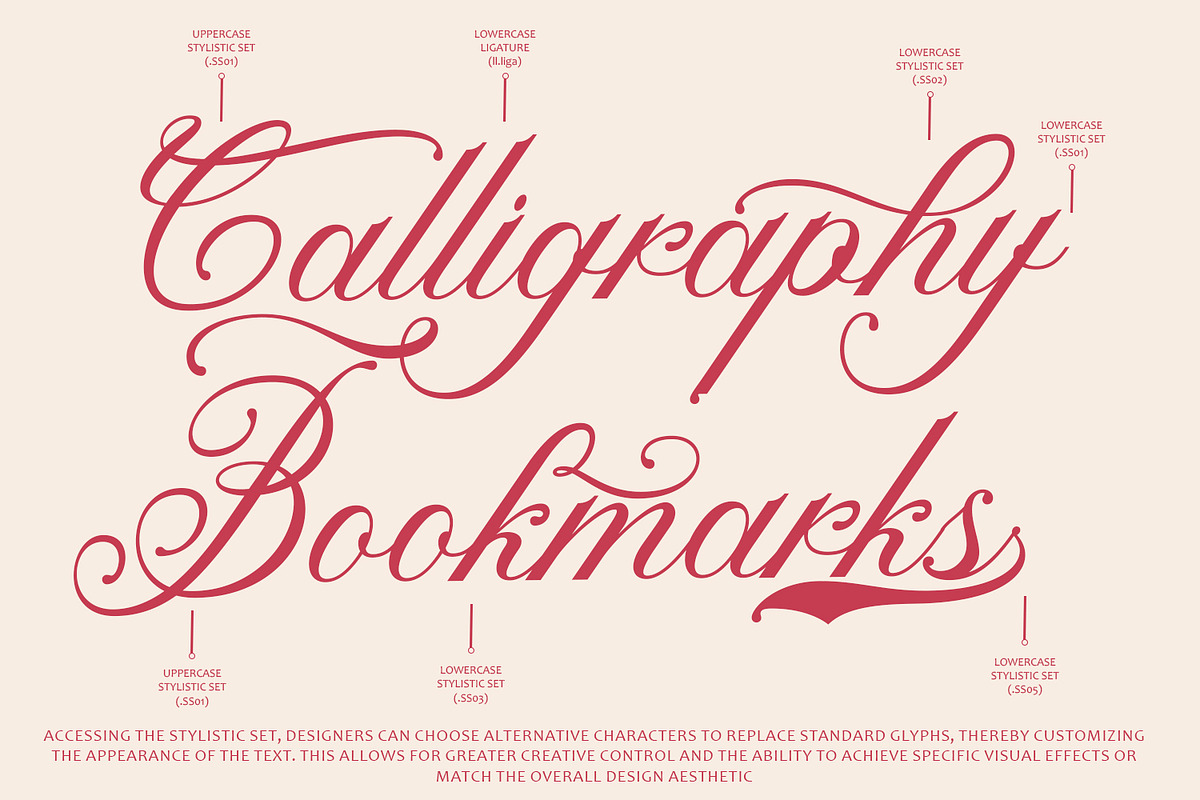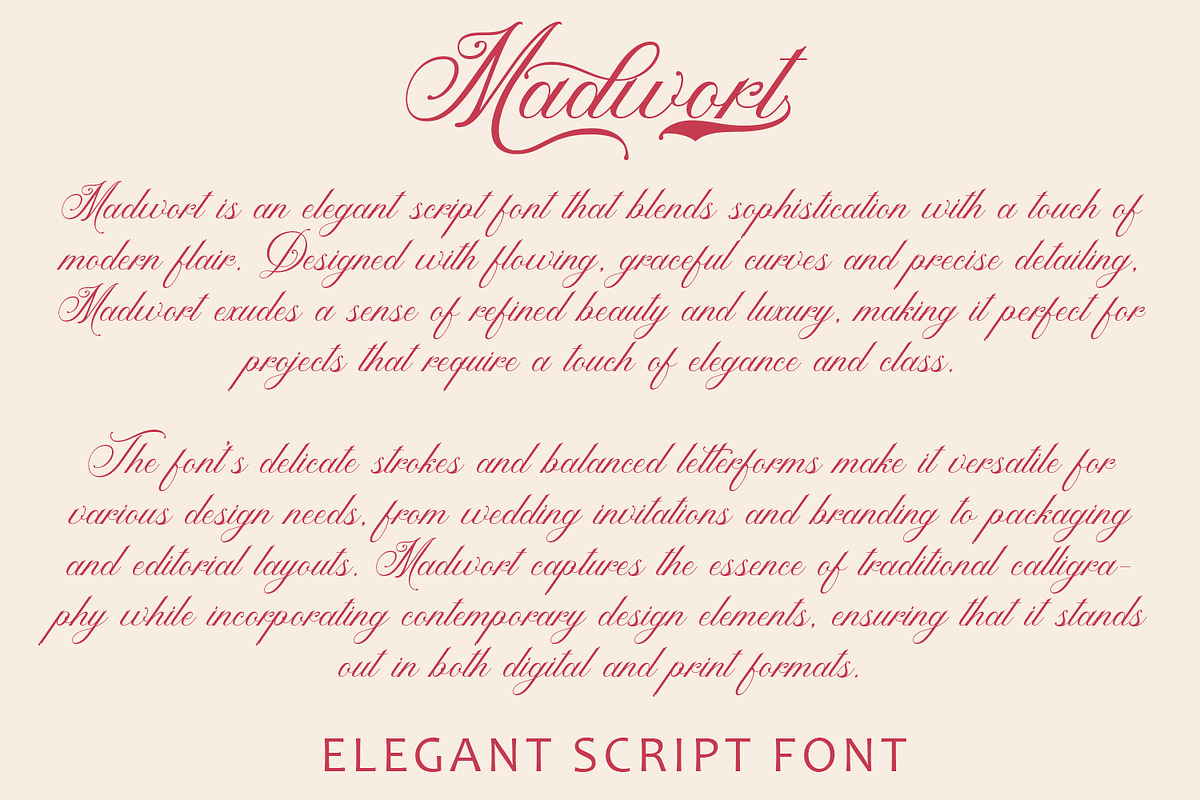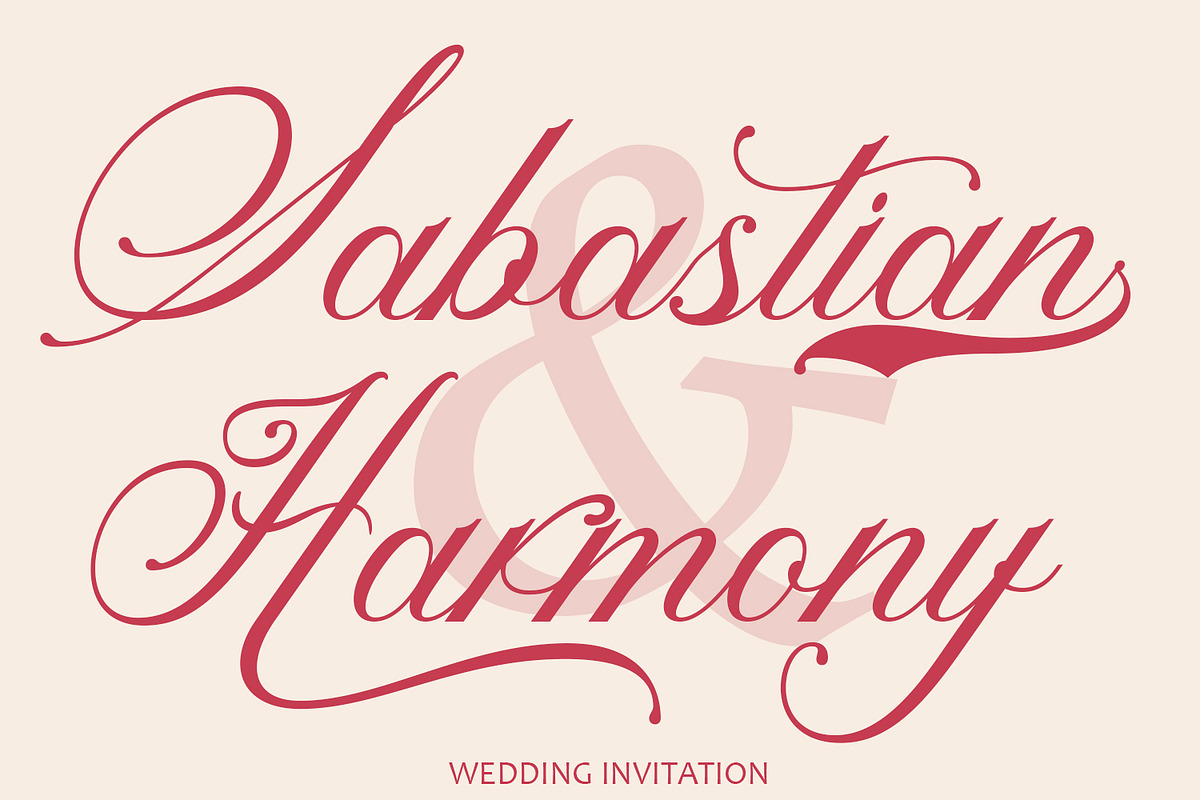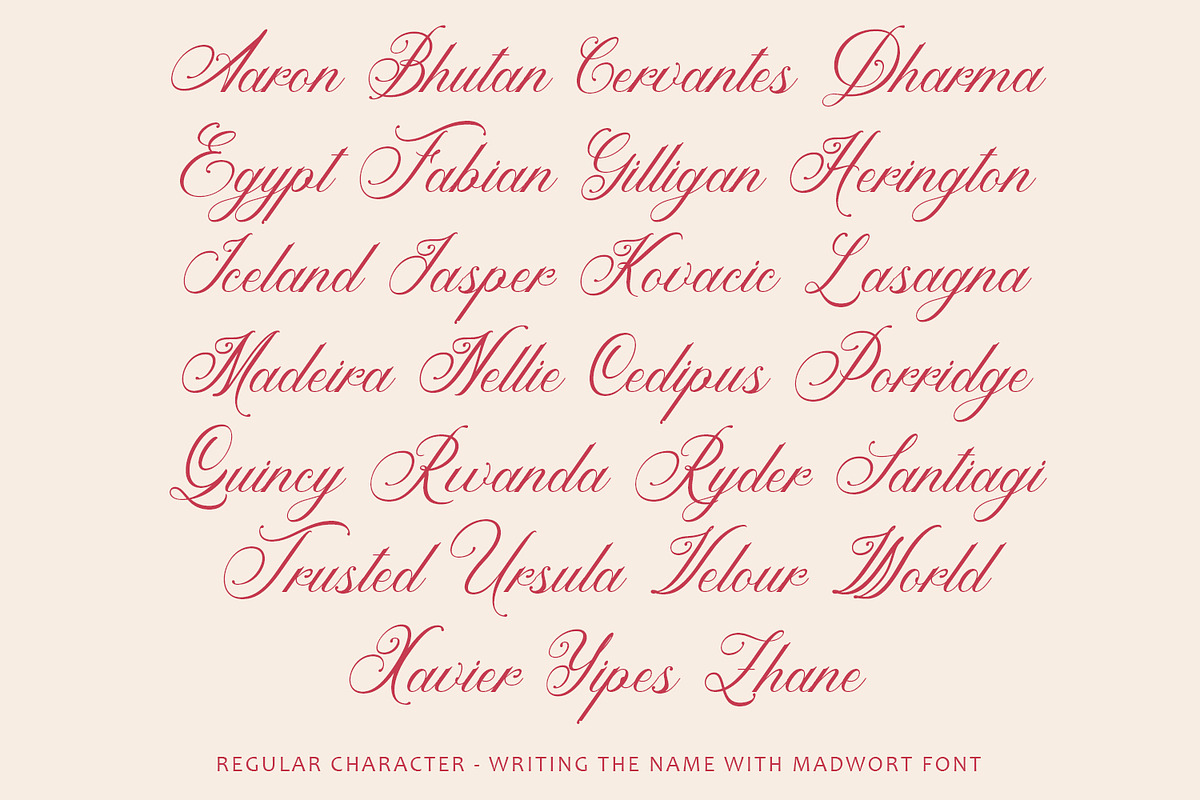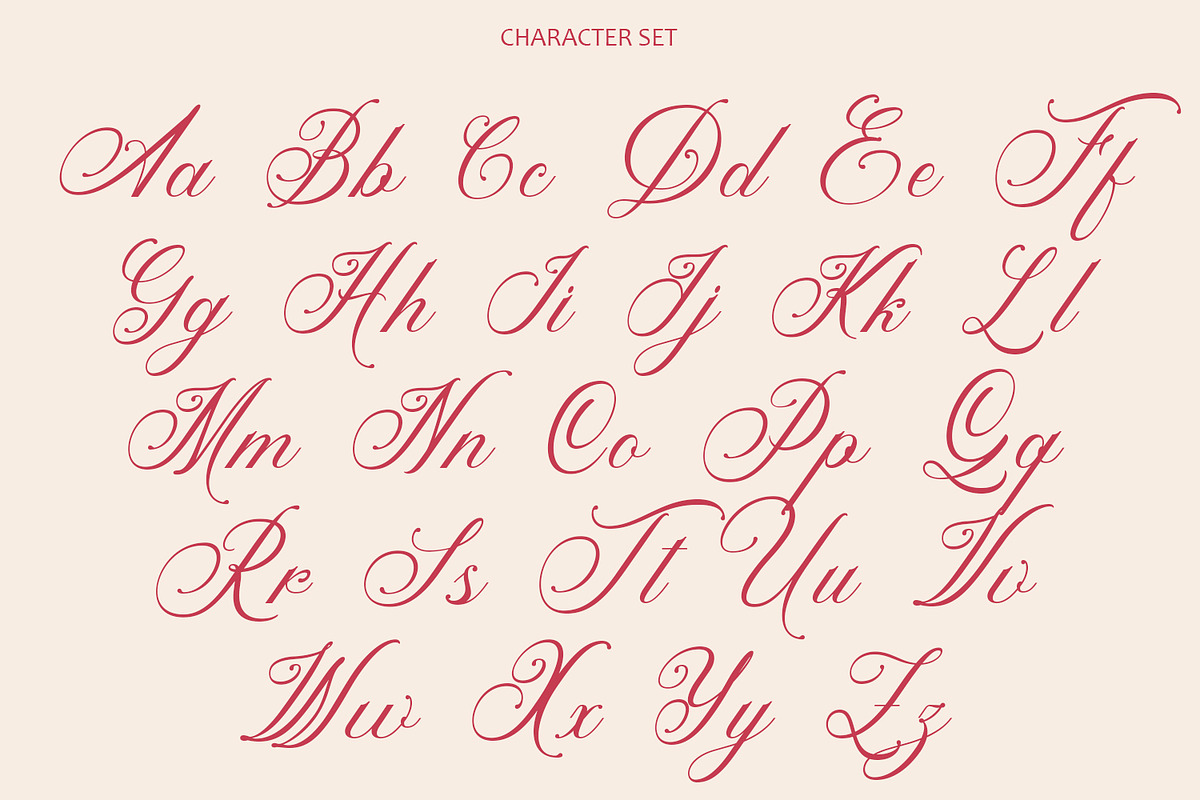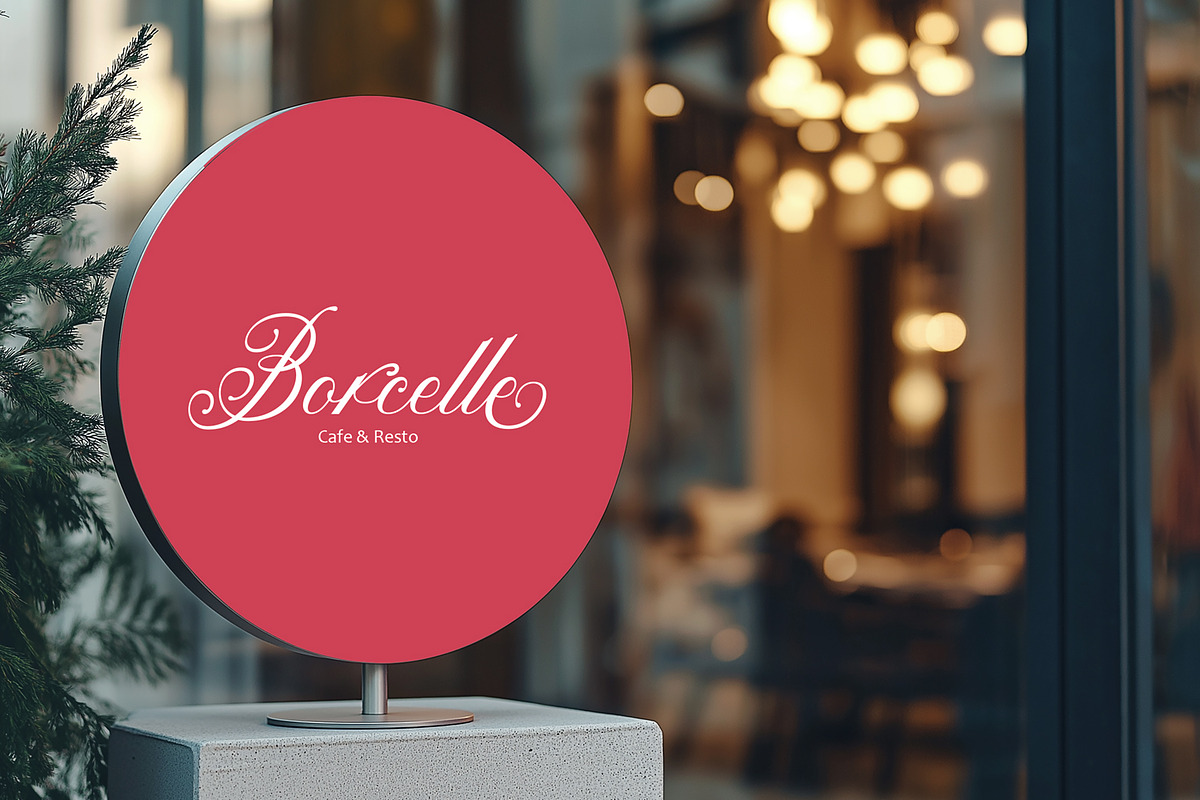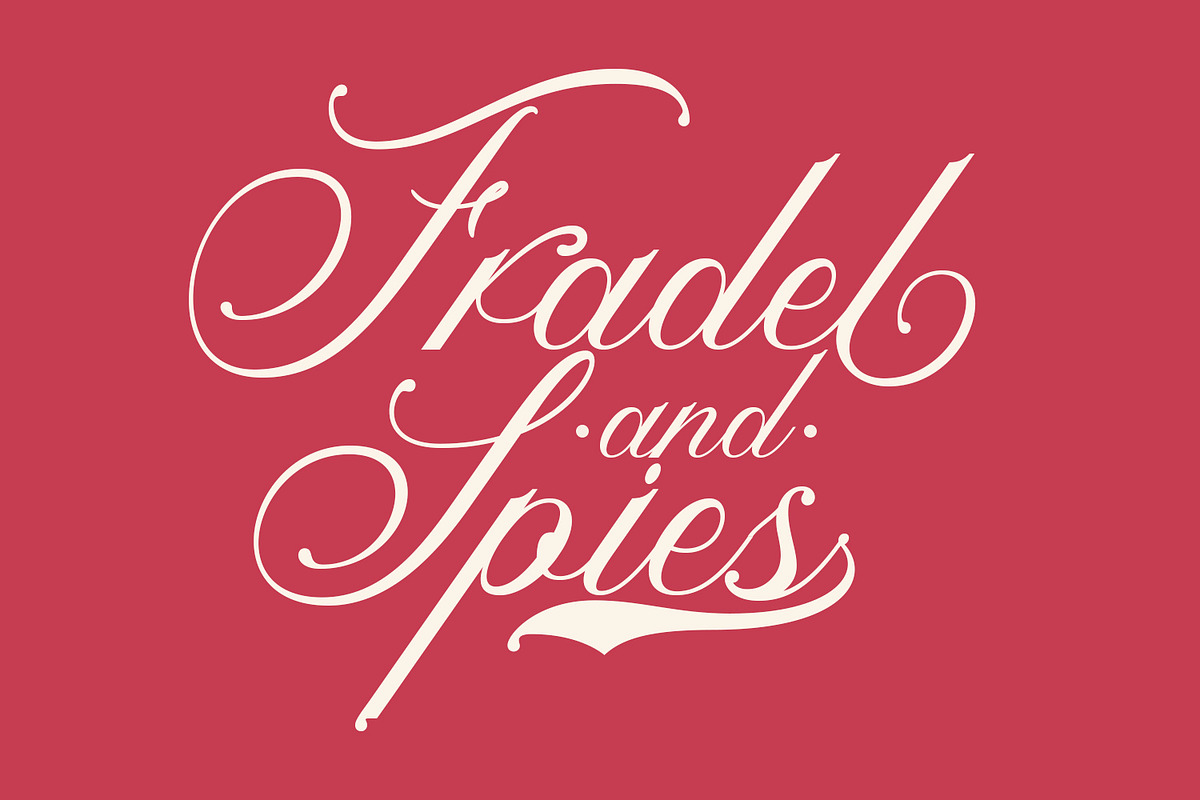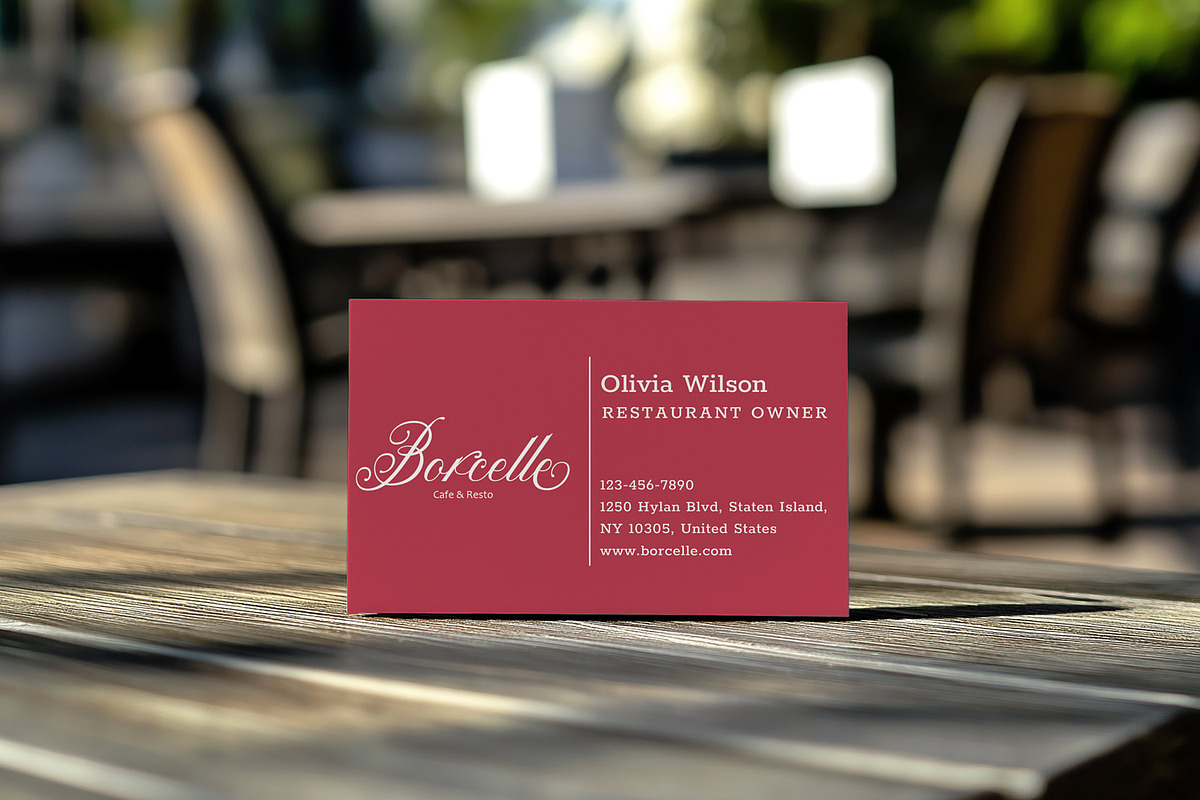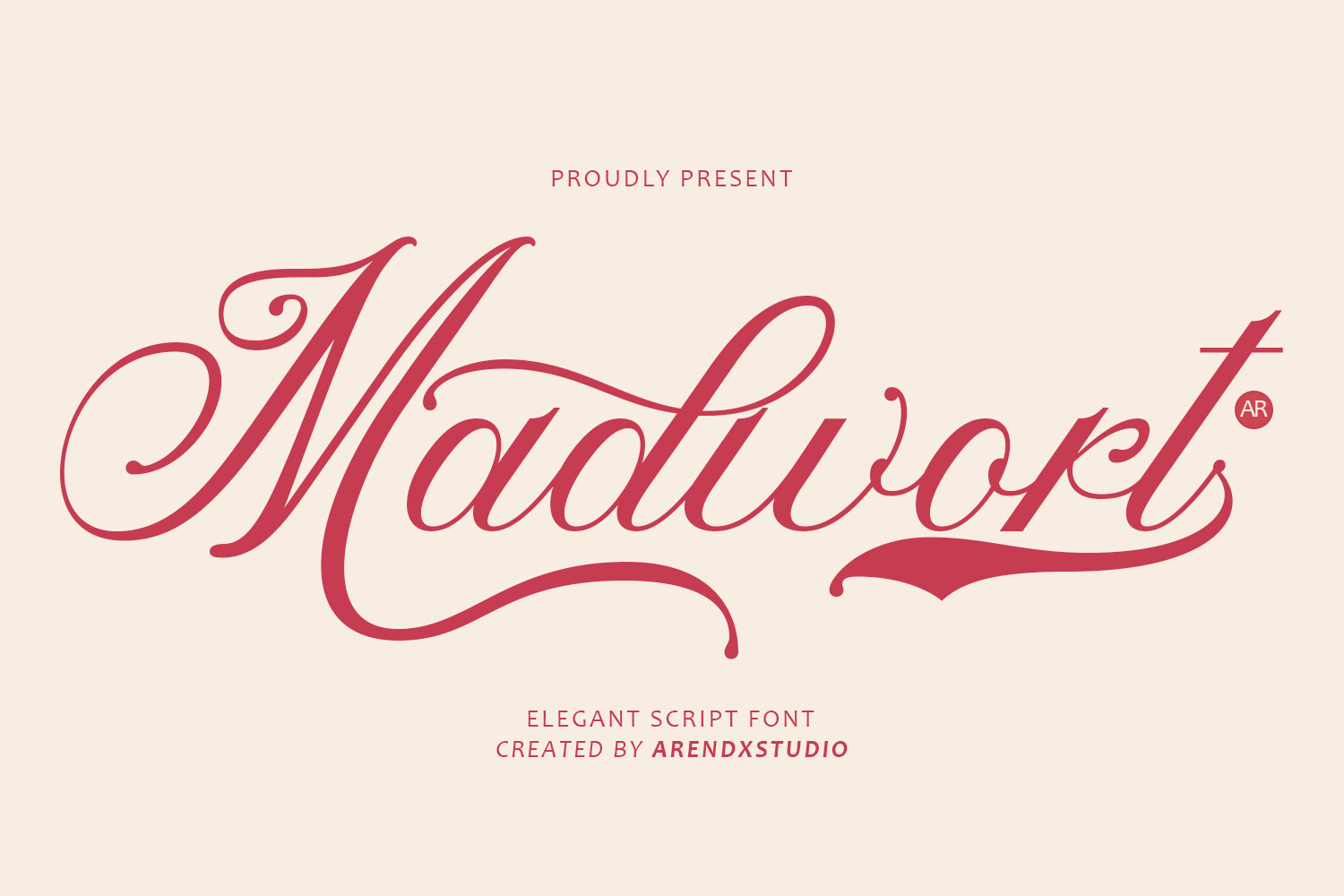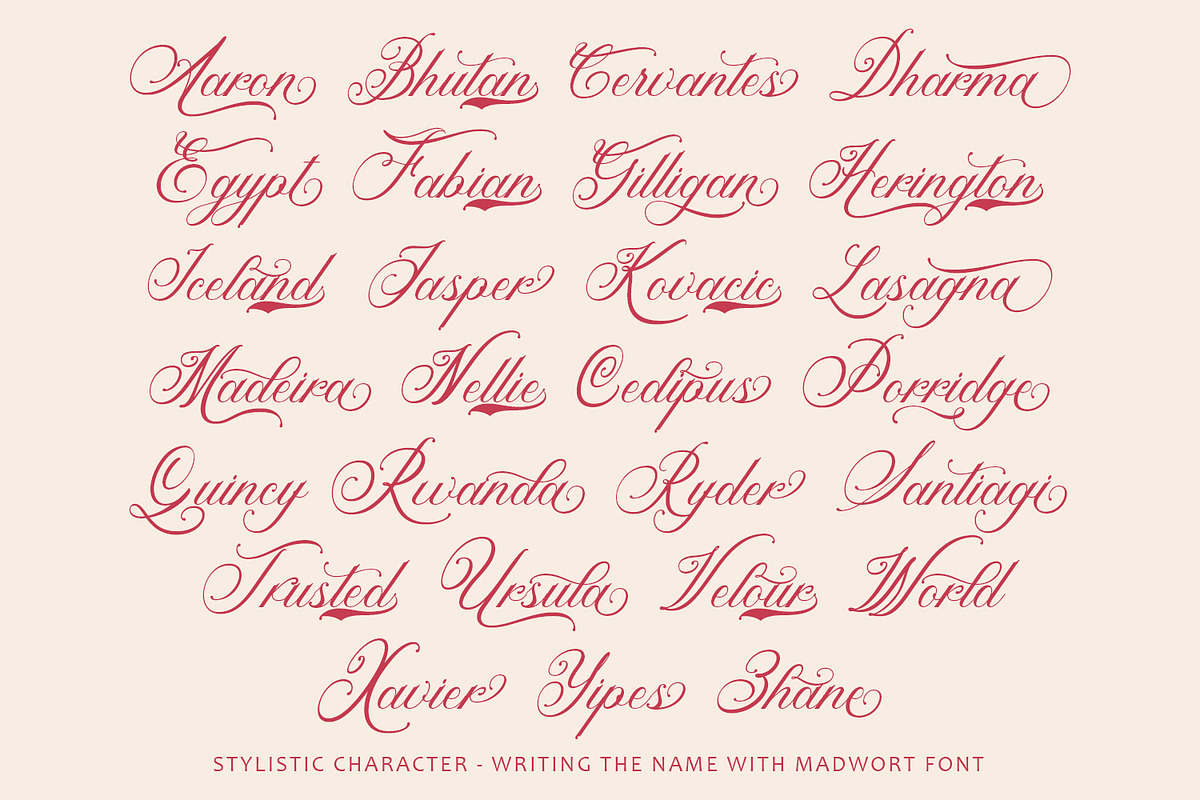
Madwort - Elegant Script Font
Madwort elegant script font is a stunning typeface that effortlessly blends sophistication with charm, making it a perfect choice for various design projects. Here's an explanation of its key features:
Timeless Sophistication: With its graceful flourishes and delicate curves, "Madwort" exudes timeless sophistication. The font's elegant script style adds a touch of class and refinement to any design, making it ideal for upscale branding, wedding invitations, packaging, and more.
Intricate Detailing: "Madwort" is meticulously crafted with intricate detailing, featuring meticulously drawn characters, graceful loops, and elegant swashes. These refined details enhance the font's overall aesthetic appeal and contribute to its sense of luxury and elegance.
Versatile Usage: Despite its formal appearance, "Madwort" is incredibly versatile and adaptable to a wide range of design contexts. Whether used for editorial layouts, product packaging, signage, or personal stationery, the font lends a sense of sophistication and elegance to any project.
Readability: While "Madwort" is undeniably elegant, it remains highly readable and legible, ensuring that messages are communicated clearly and effectively. The font strikes a perfect balance between style and functionality, making it suitable for both display and body text.
Distinctive Personality: "Madwort" possesses a distinctive personality that sets it apart from other script fonts. Its graceful lines and refined aesthetic exude confidence and charm, making it an excellent choice for designers looking to convey sophistication and elegance in their designs.
Stylistic set
Overall, "Madwort" is an elegant script font that effortlessly combines timeless sophistication with intricate detailing and versatility. Whether used for formal invitations or luxurious branding, this font adds an element of refinement and class to any design project.